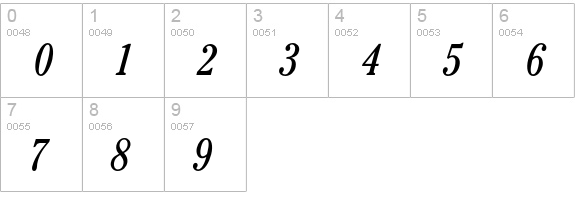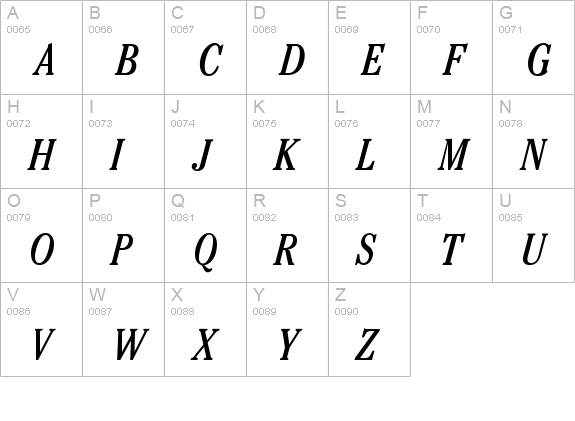
CheltenhamCondBookItalic Font Details
CheltenhamCondBookItalic is a classic and elegant font that exudes sophistication and style. Its italicized design adds a touch of flair and grace to any text. Perfect for adding a touch of refinement to your projects, this font is versatile and can be used for a variety of applications. What makes CheltenhamCondBookItalic even better is that it is available for free download at FontsMarket.com. Yes, you read that right - this exquisite font can be yours at no cost. Whether you're working on a professional document, designing a stunning logo, or creating eye-catching graphics, CheltenhamCondBookItalic is sure to elevate your work to the next level. Don't miss out on this fantastic opportunity to enhance your projects with the timeless beauty of CheltenhamCondBookItalic. Download it for free today at FontsMarket.com and start creating with style and sophistication.